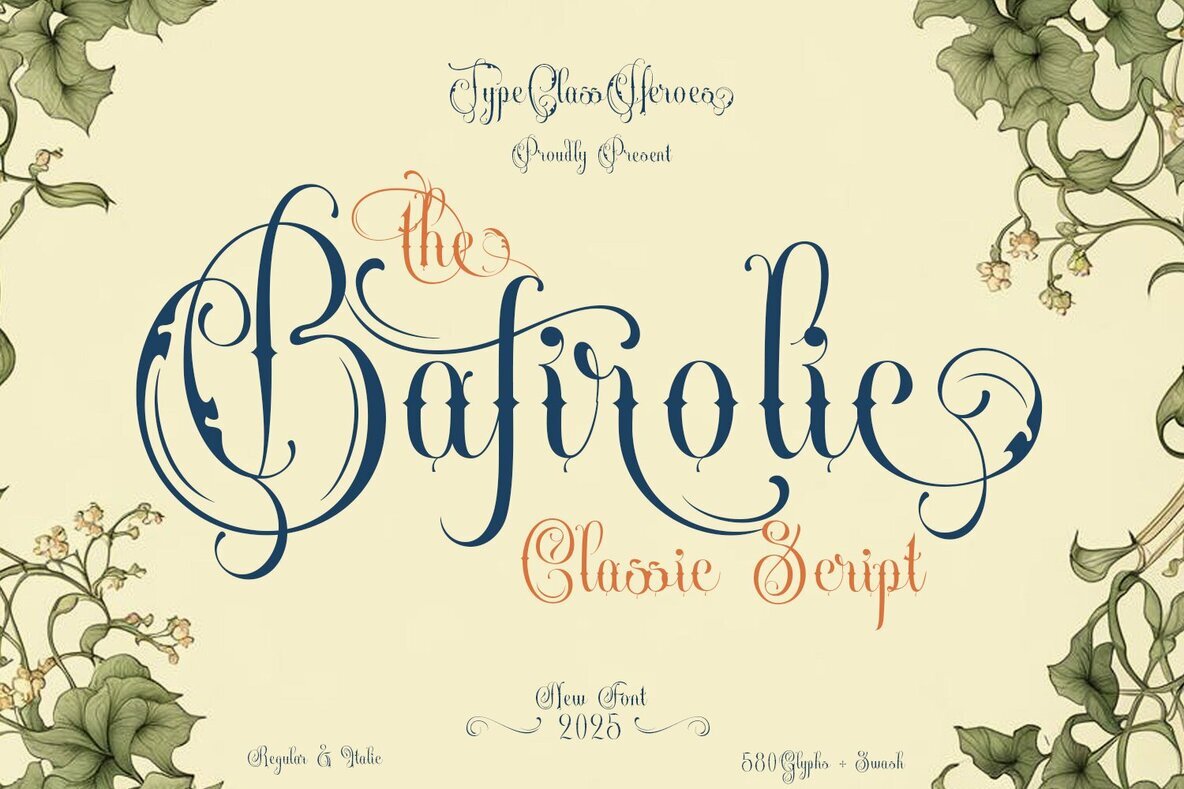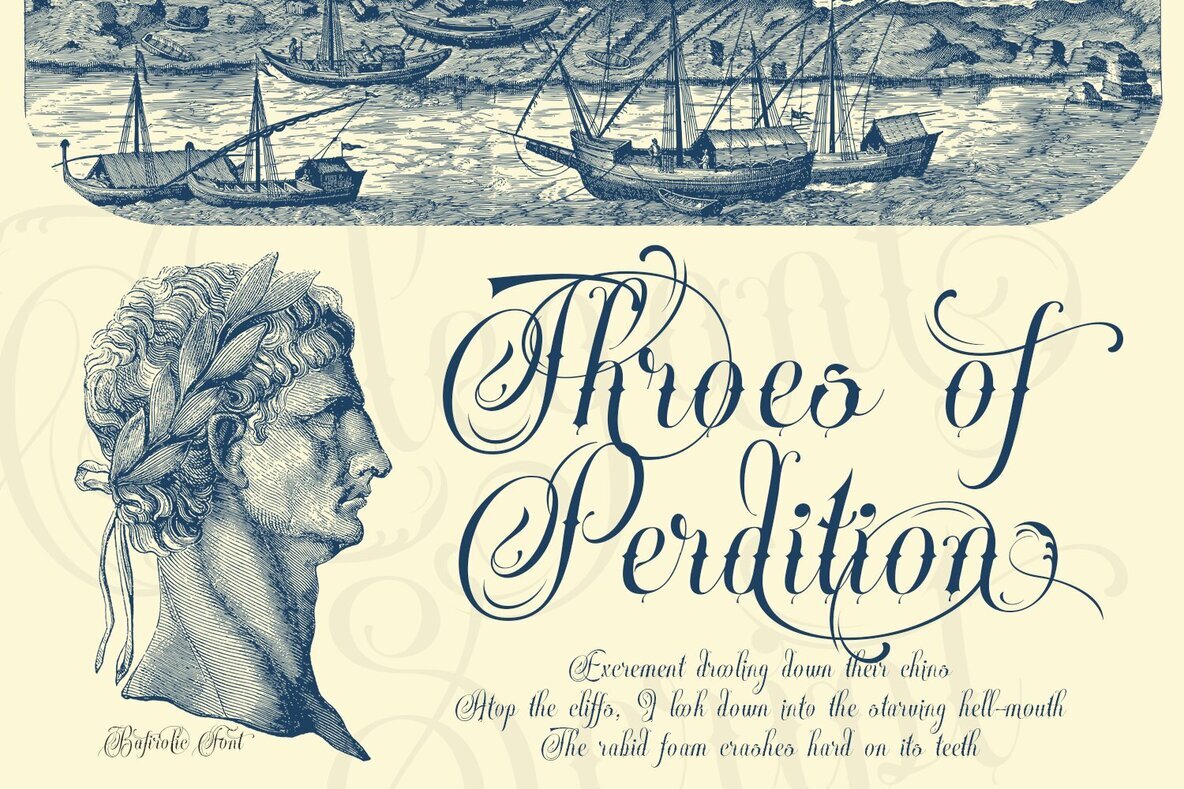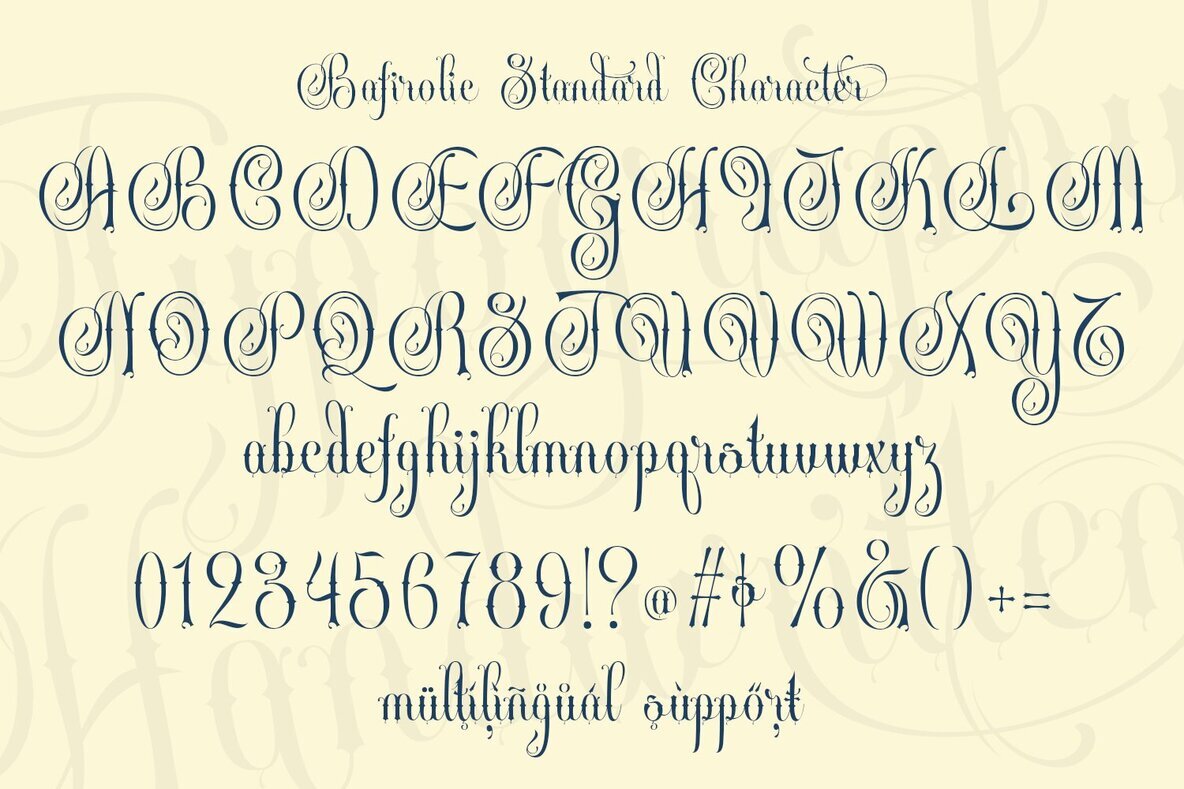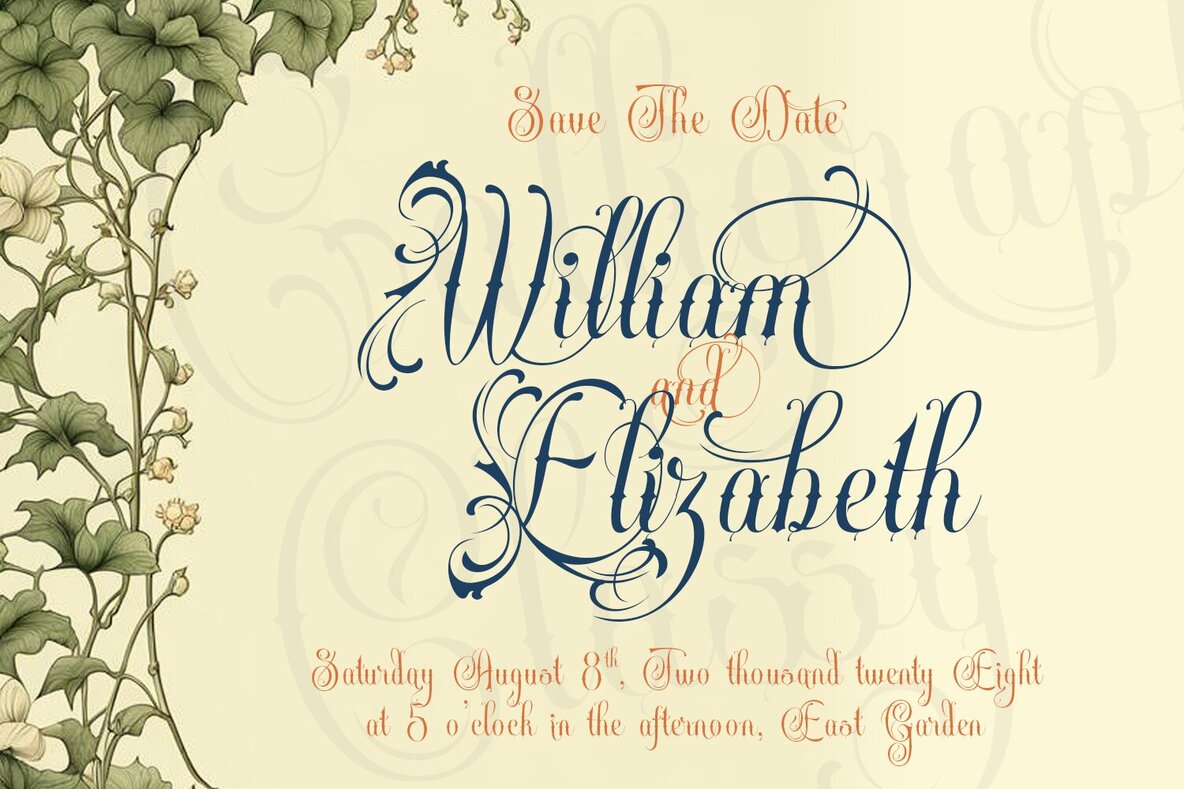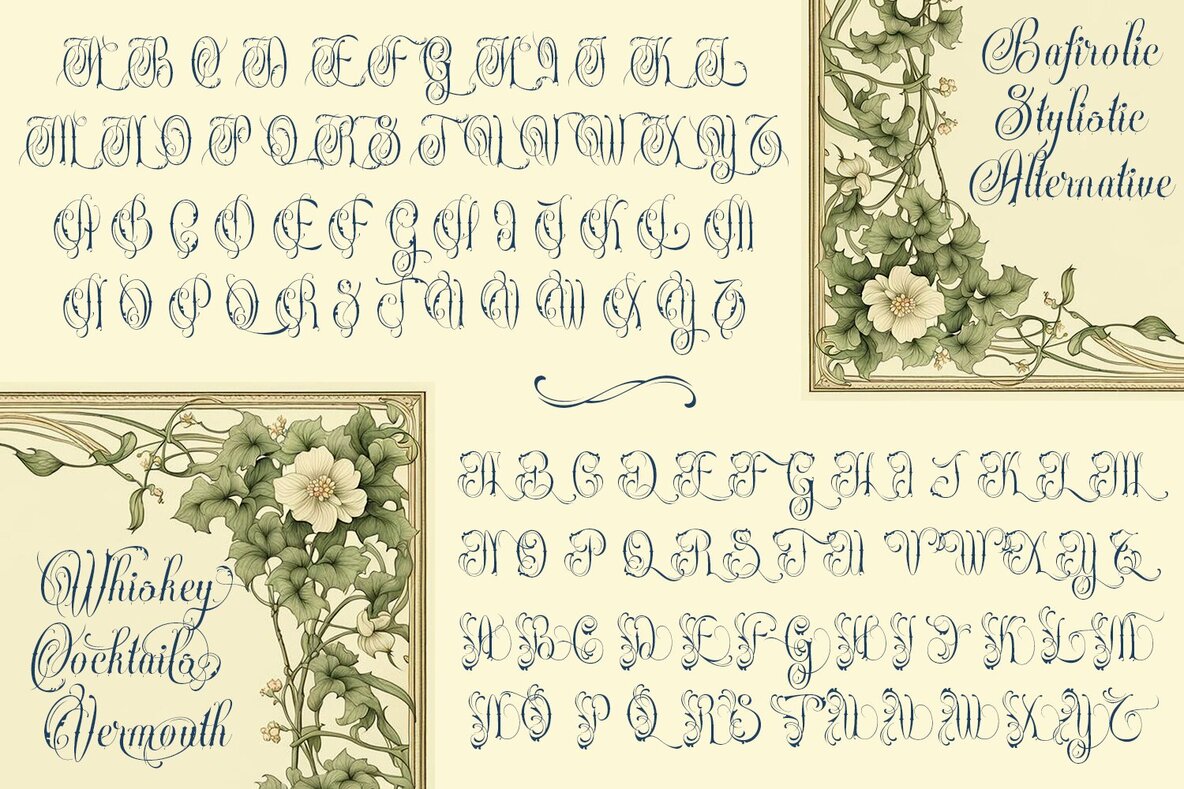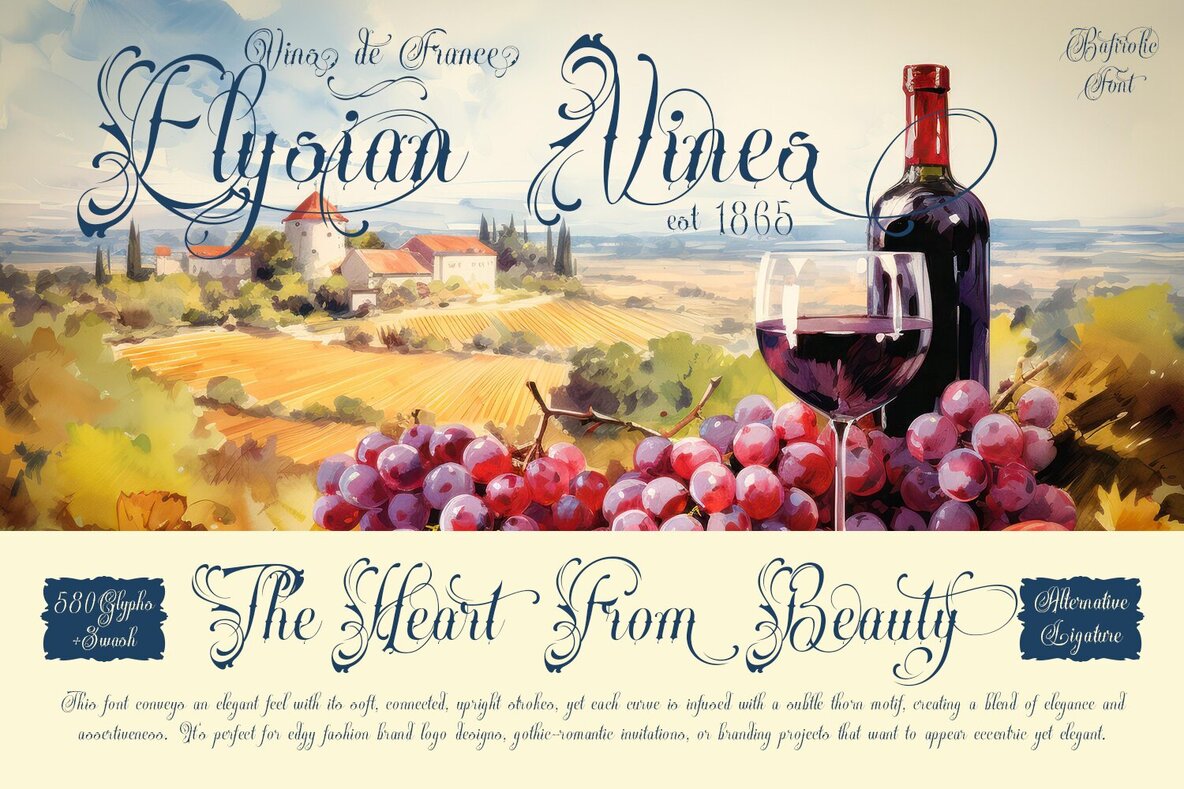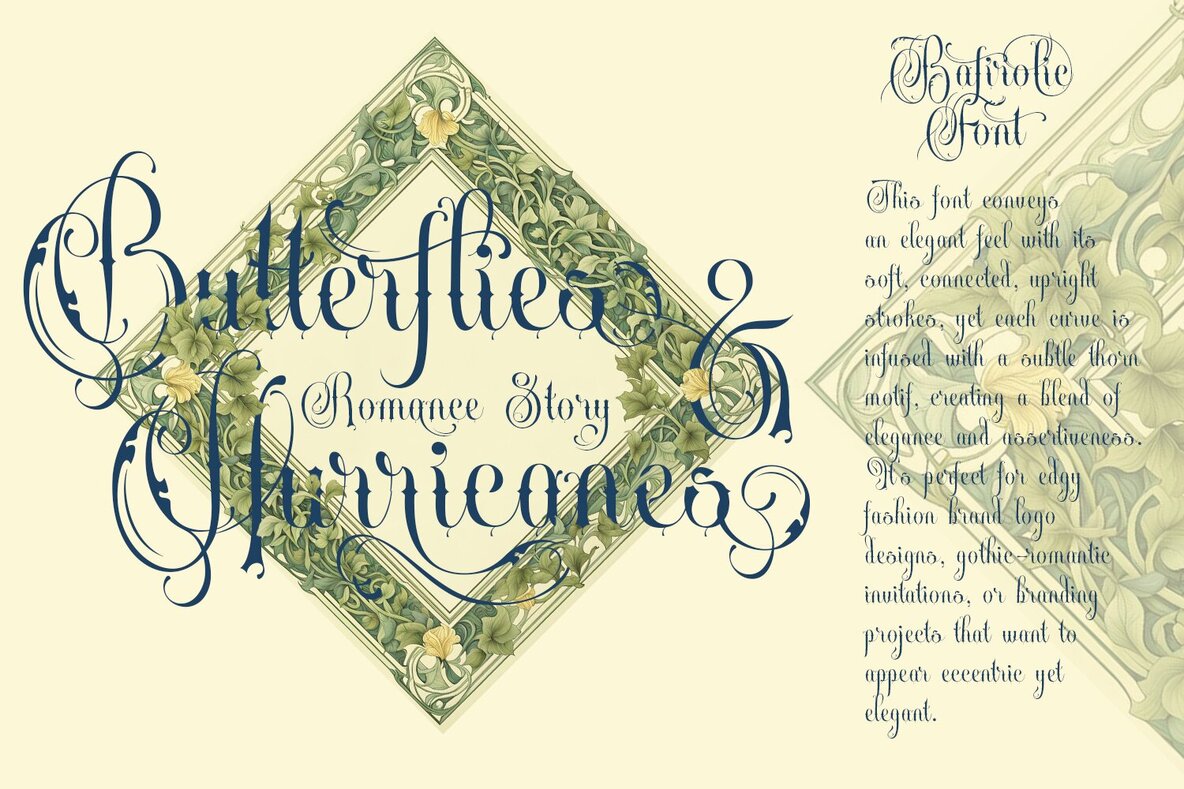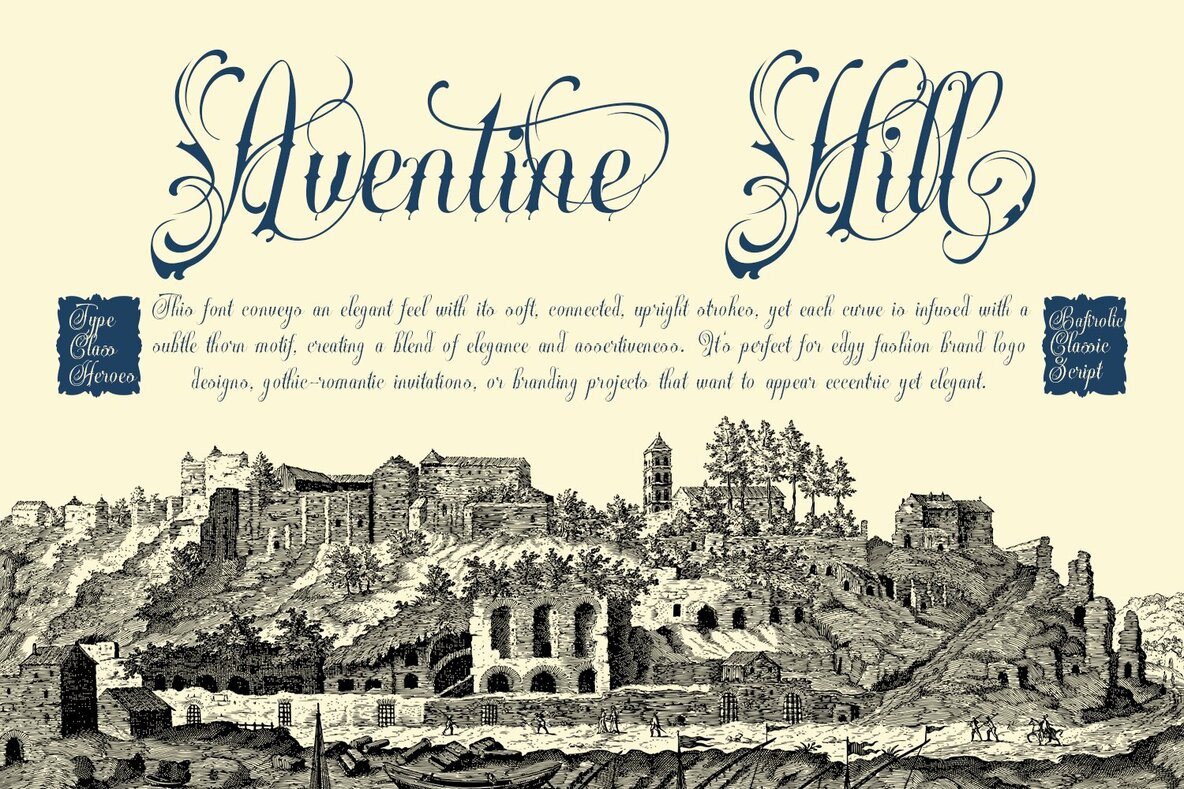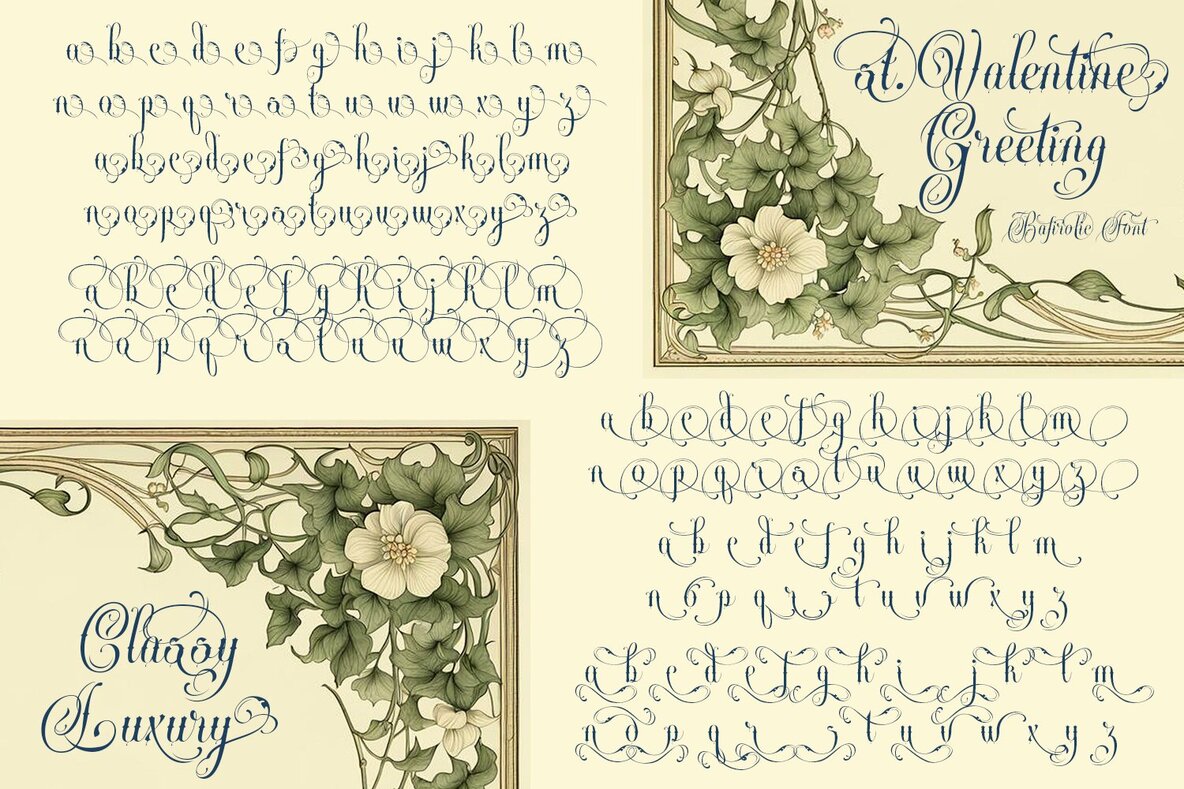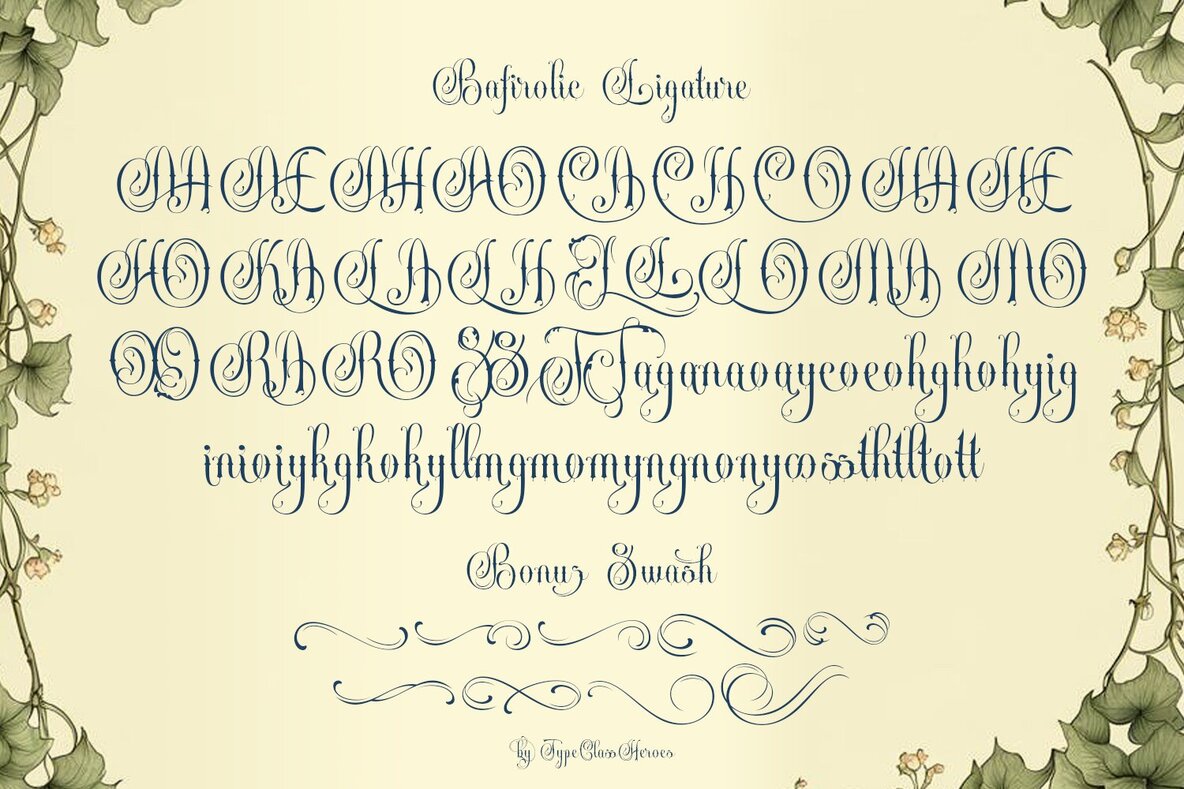
Bafirolic Font
Bafirolic Regular
Bafirolic Italic
Bafirolic Classic Script stands out with its graceful, connected strokes that offer soft elegance while maintaining a distinct character. Subtle thorn motifs along every curve add a unique edge, balancing refinement and boldness for projects that require both sophistication and individuality.Bafirolic Classic Script Font
This font adapts to a variety of creative contexts. Use it for branding, crafting a memorable logo, or setting an eccentric yet refined tone on gothic-romantic invitations. Each letter maintains legibility while drawing attention, making Bafirolic an excellent choice for contemporary design needs.Key Features